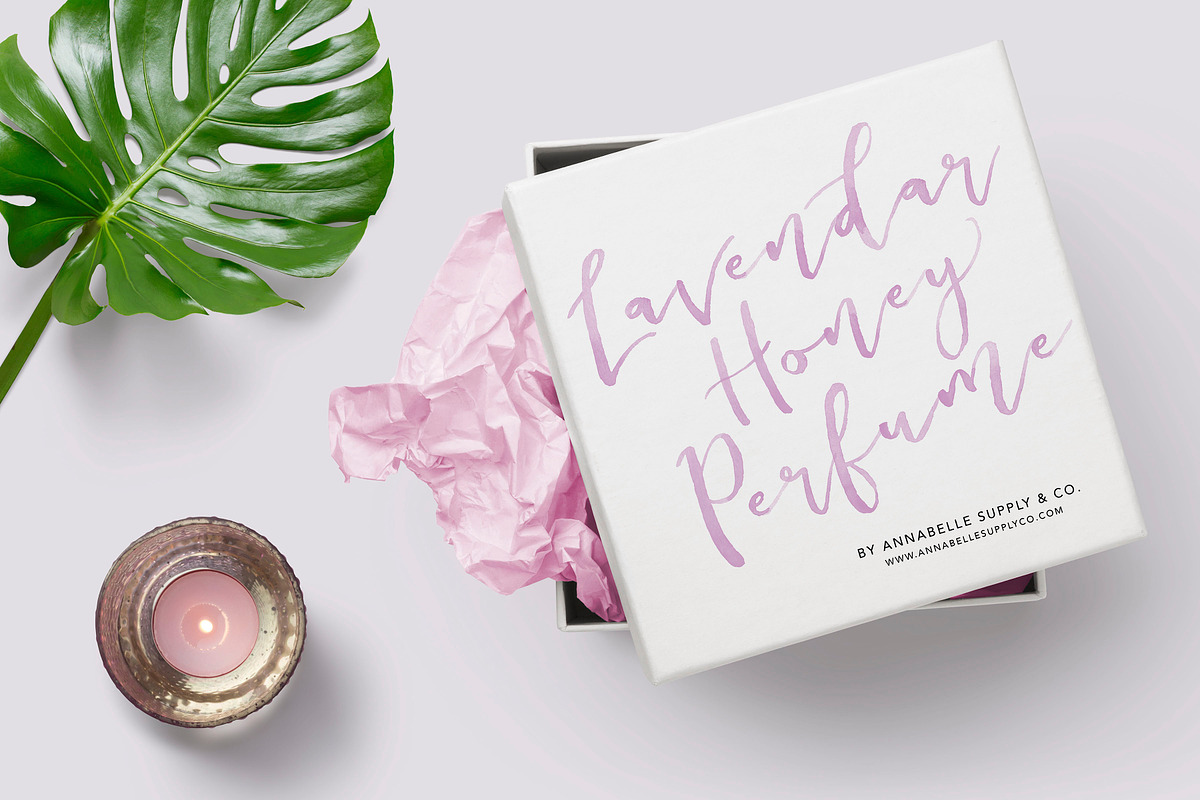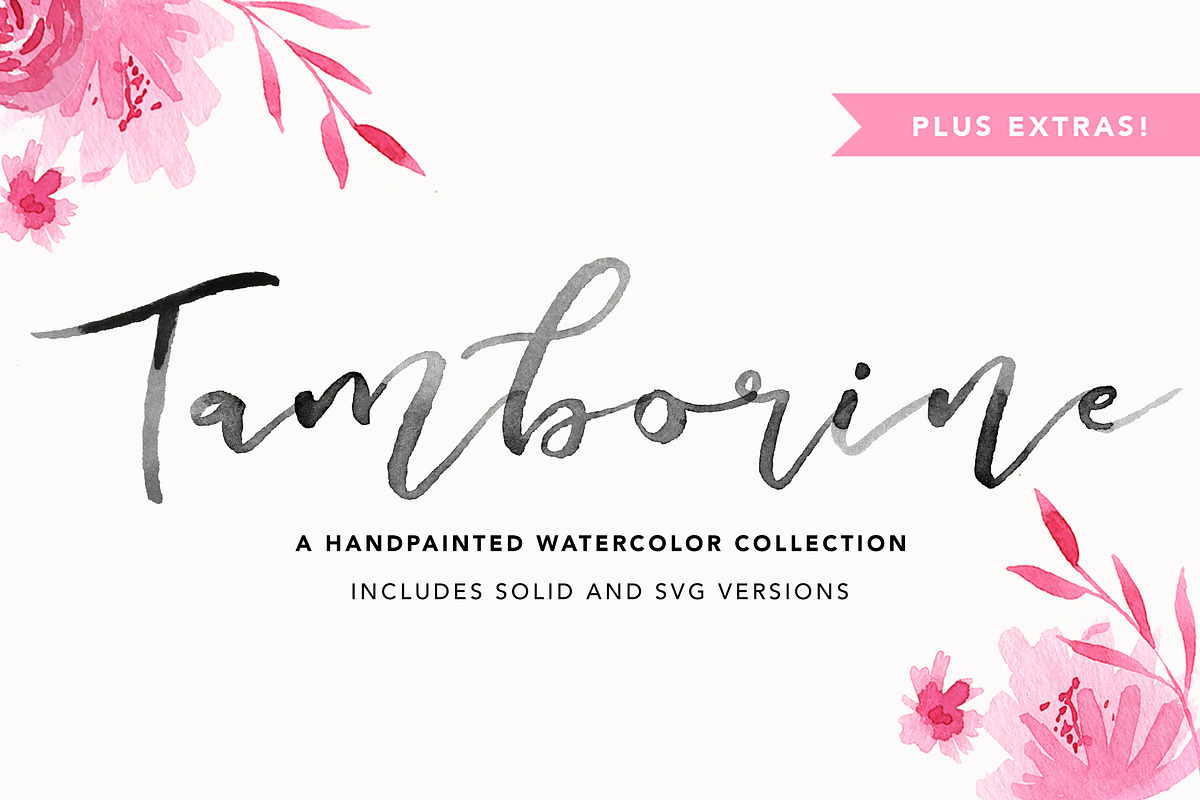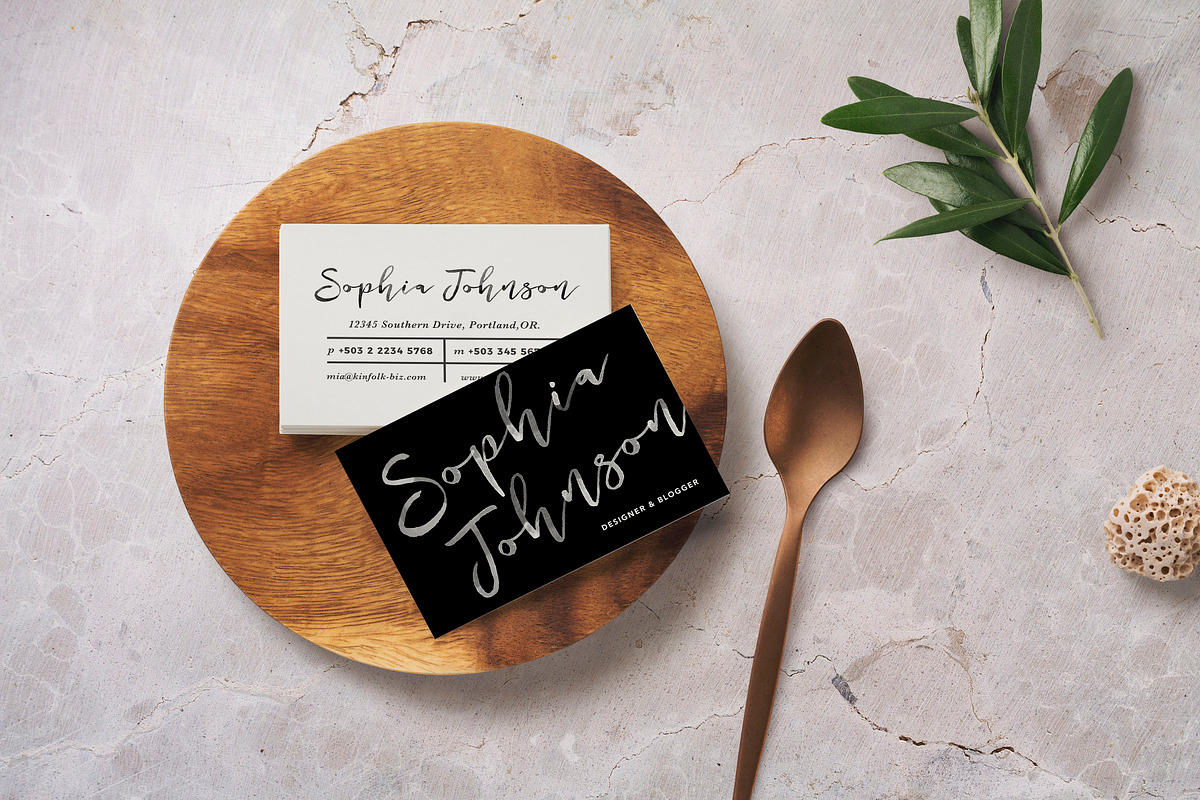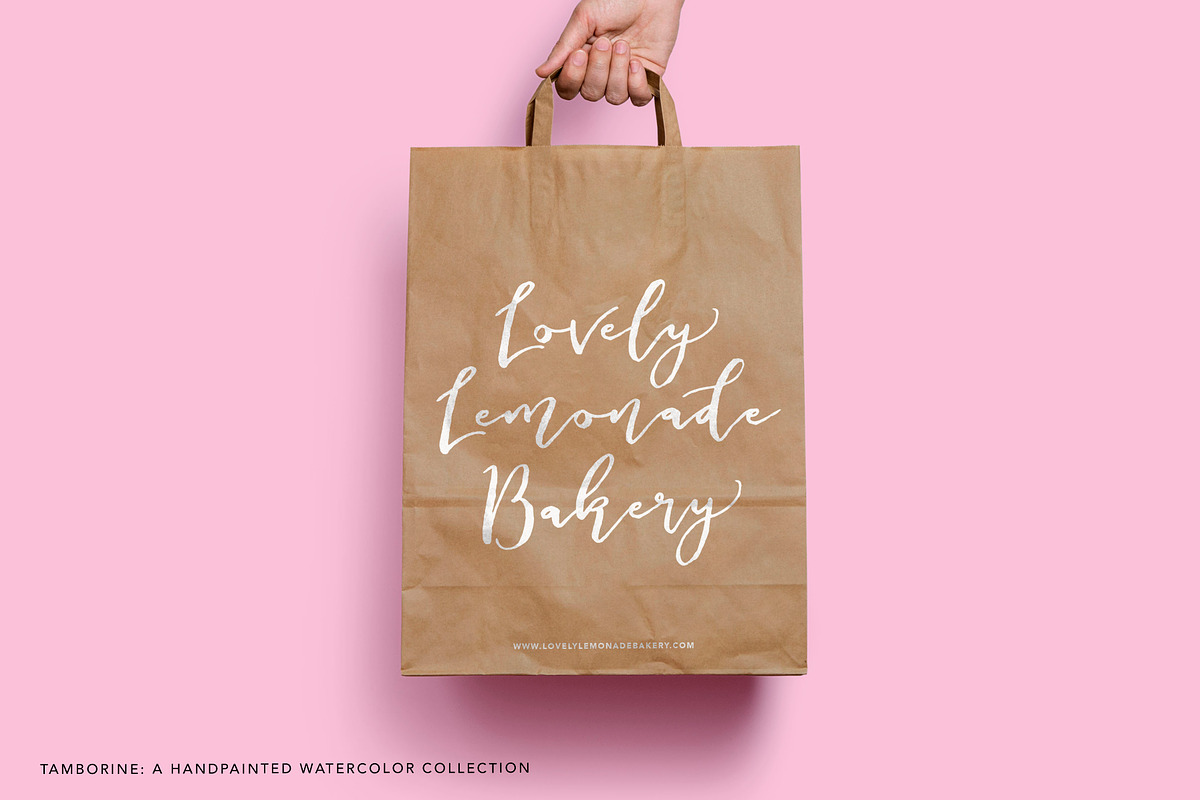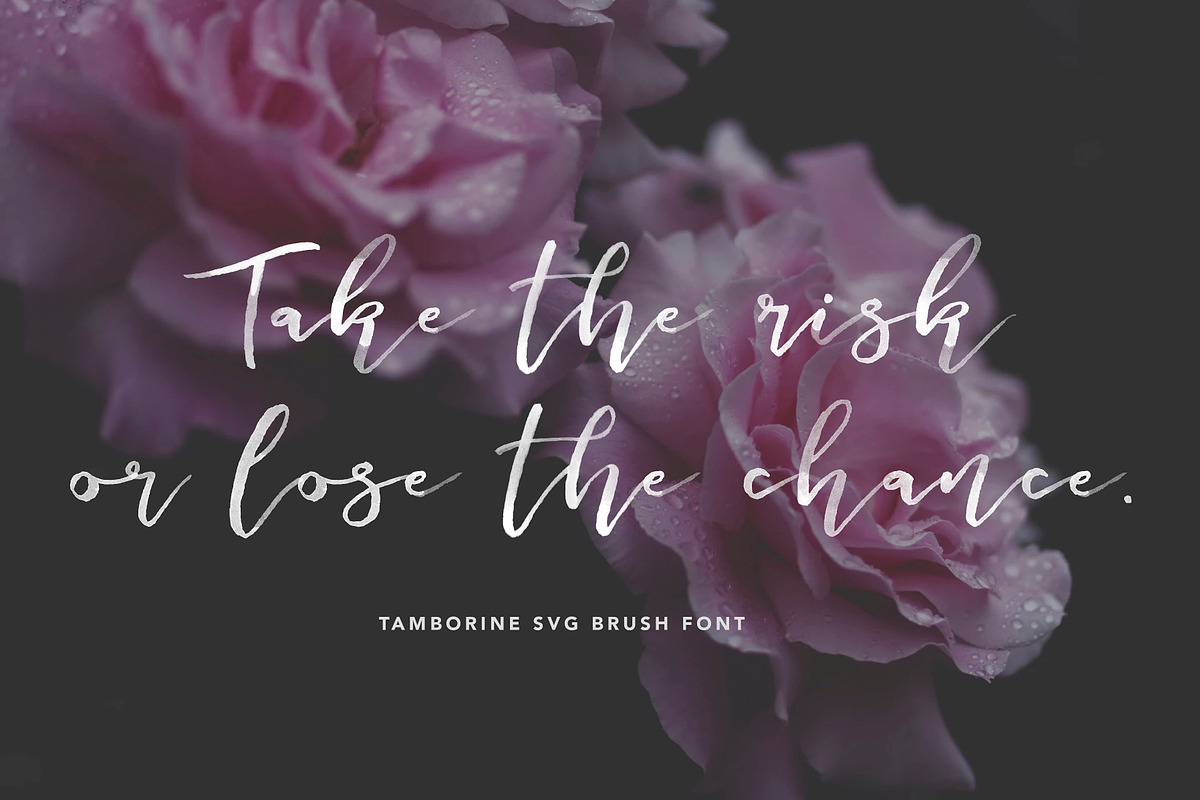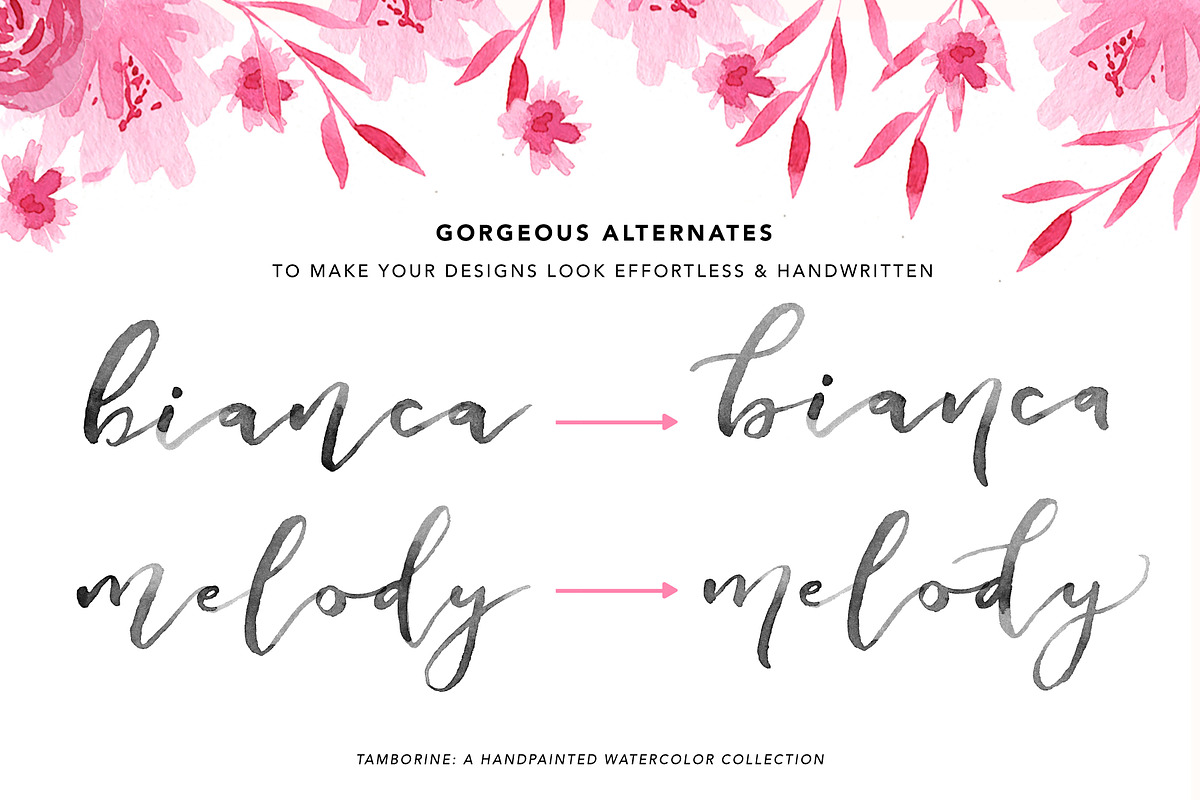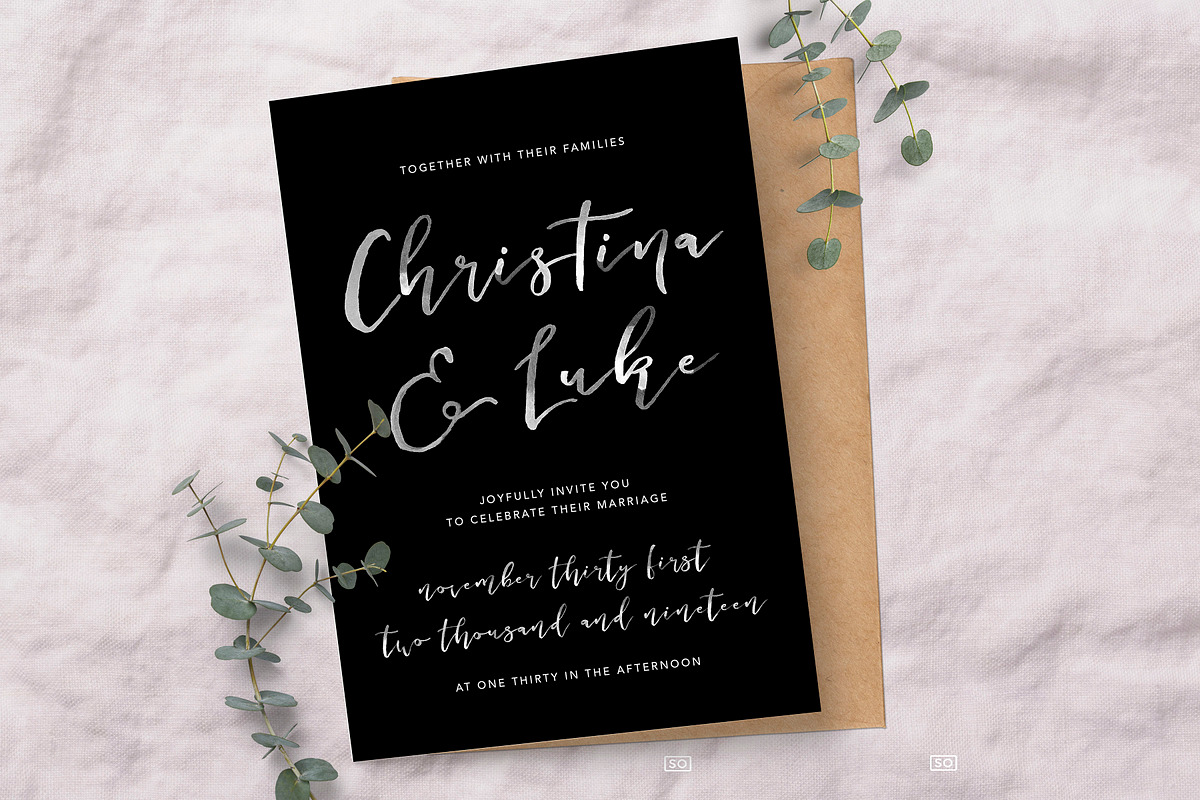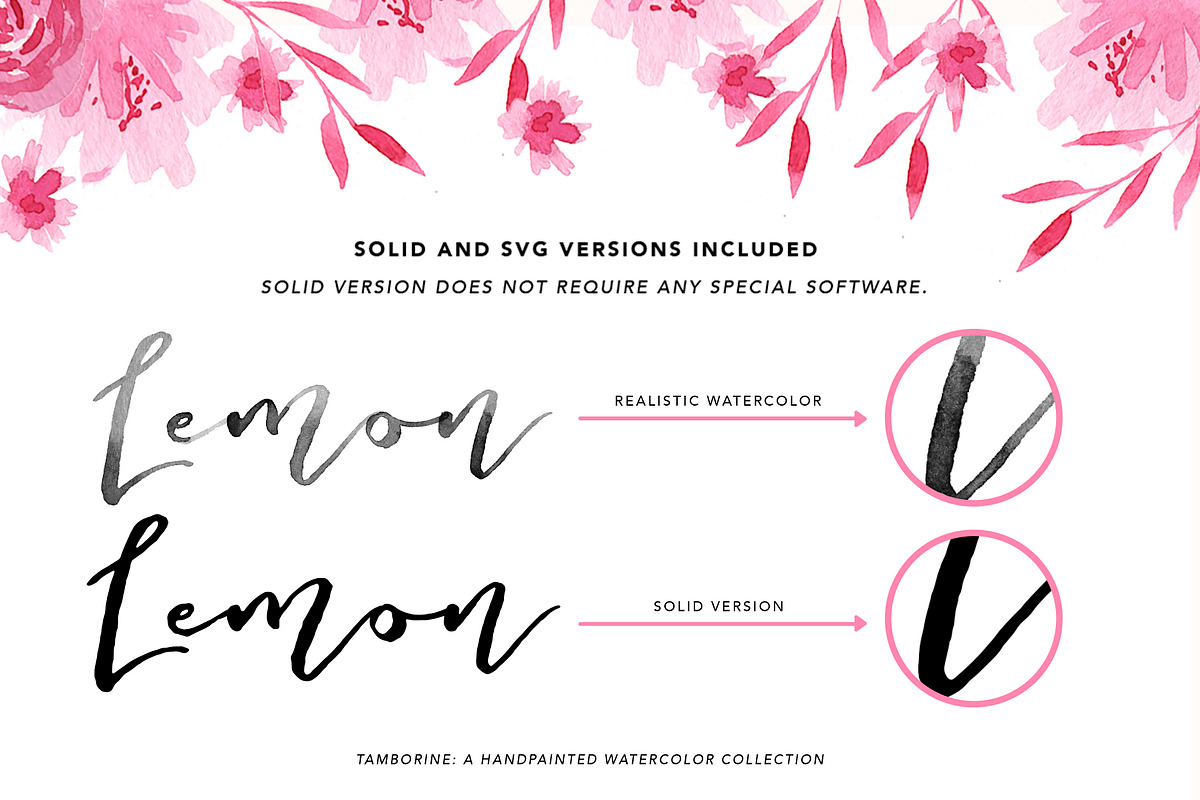
Tamborine SVG + Solid Font
Introducing Tamborine! - a lovely hand painted script font with some gorgeous extras :)
Tamborine was created to look natural, feminine and handwritten. The font includes several ligatures watercolor clipart extras to enhance your designs.
1. Tamborine Solid Brush Font: This version does not require any special software to use. It is in the traditional vector style. This comes as both OTF ad TTF files.
2. Tamborine Extras: 37 Watercolor Bonuses that will enhance your designs! These include flowers, hearts, leaves, swashes and more! This comes as a layered psd file and as png files.